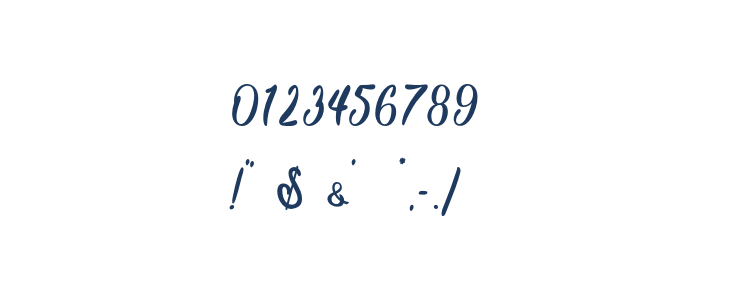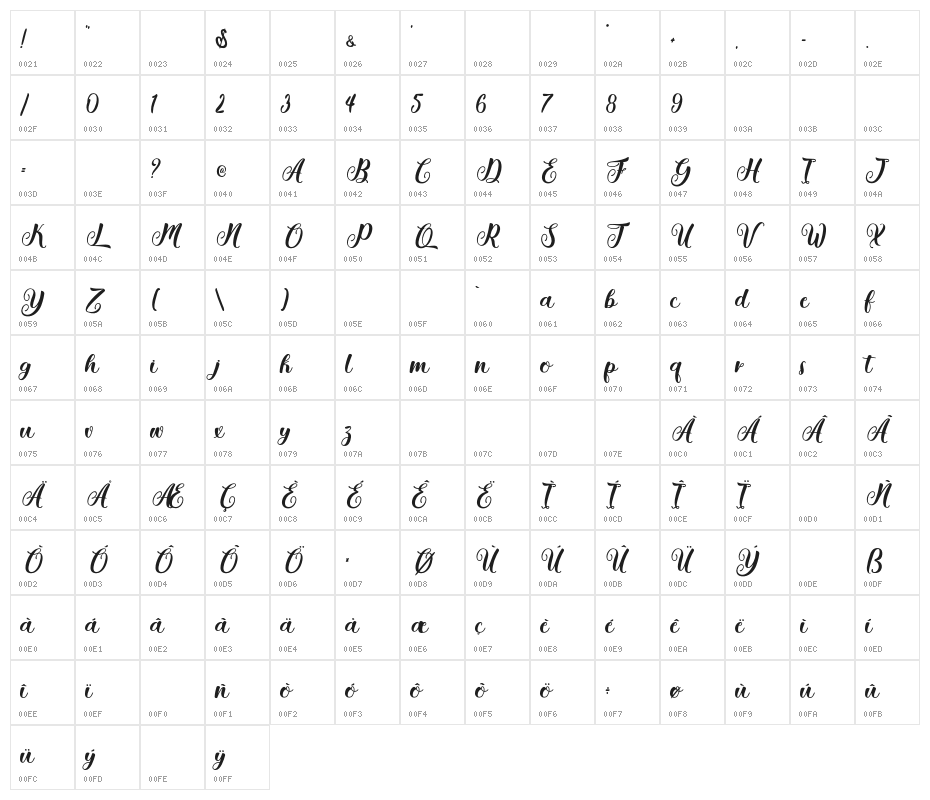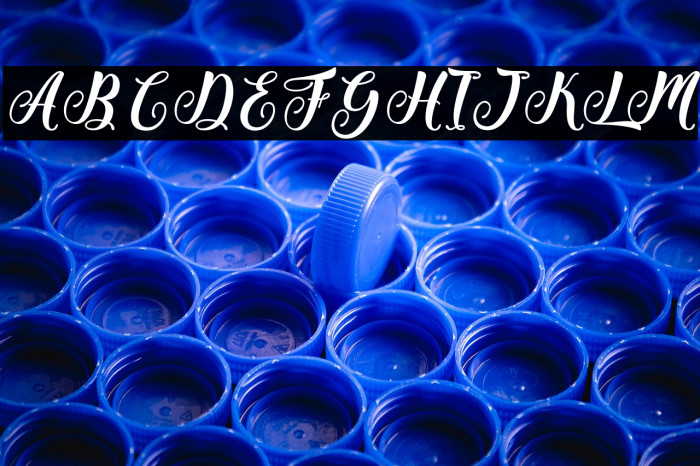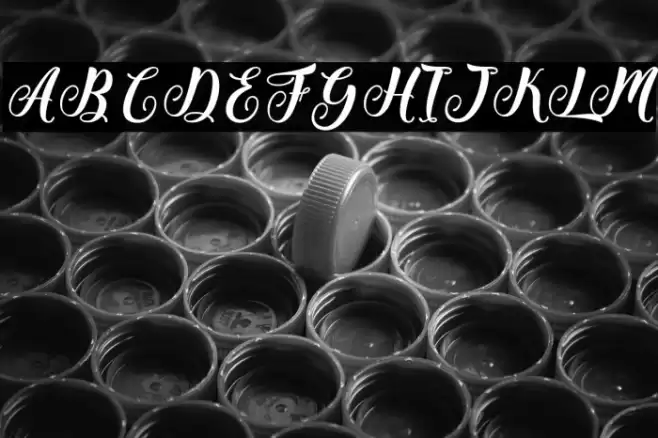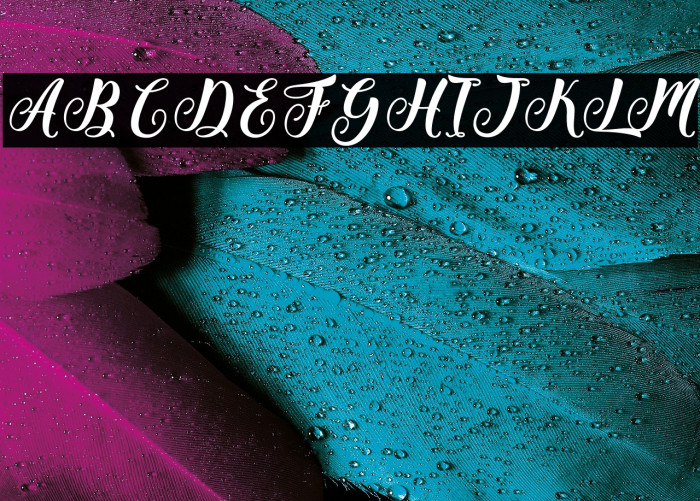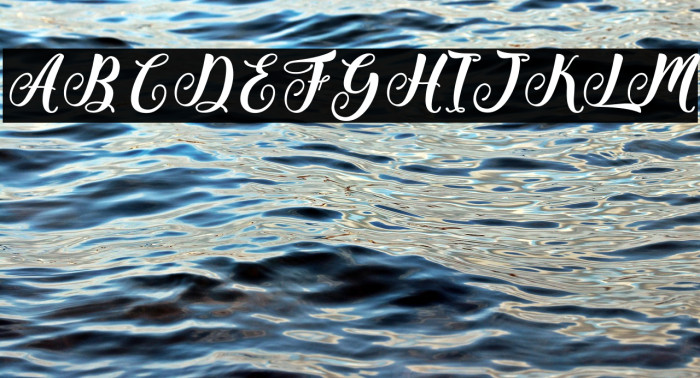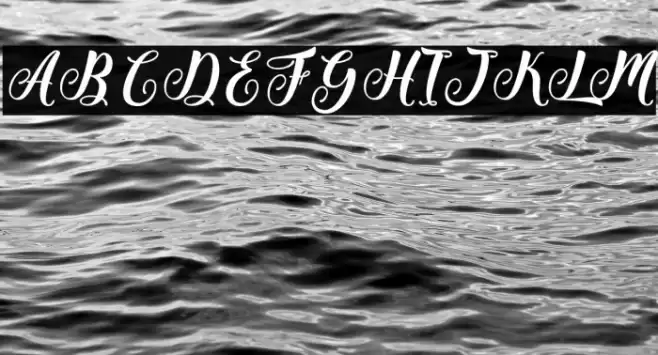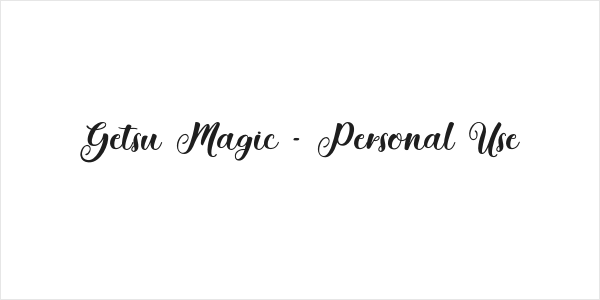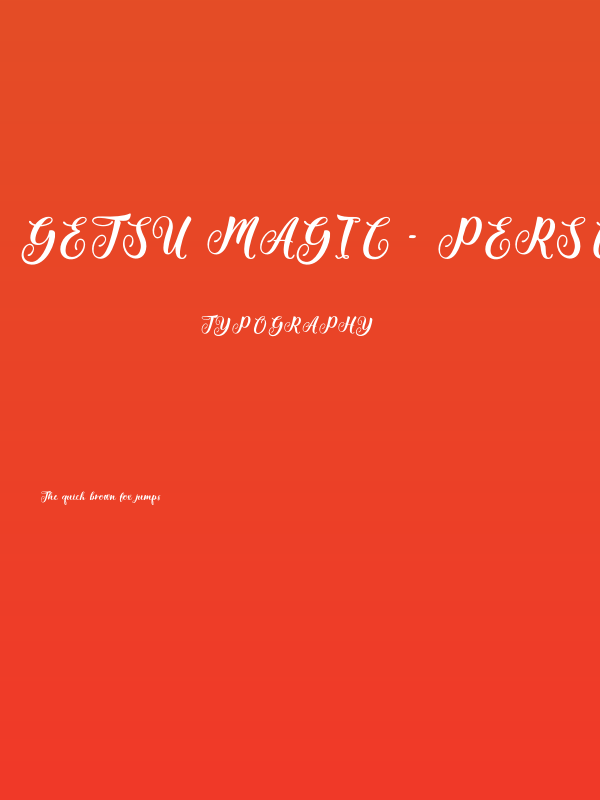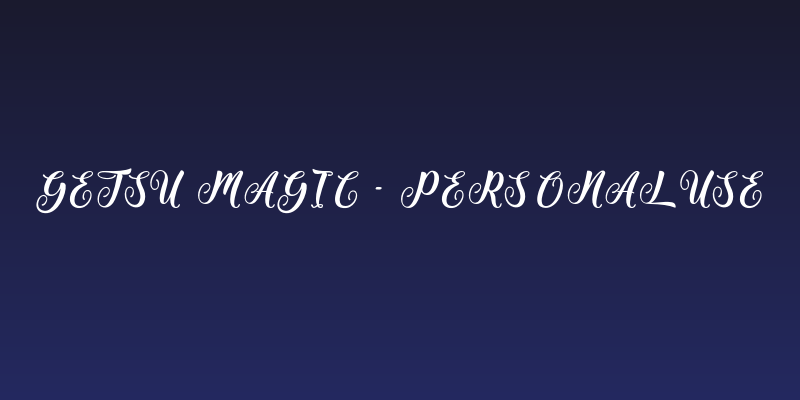
Getsu Magic - Personal Use Font
Getsu Magic - Personal Use Description
This font exudes a playful and elegant charm, characterized by its flowing script style. The uppercase letters are adorned with graceful swashes and loops, adding a touch of sophistication. The lowercase letters maintain a consistent fluidity, with smooth curves and a slightly whimsical flair. The numerals are clear and stylish, complementing the overall aesthetic. Special characters are thoughtfully designed, enhancing the font's versatility. This font is perfect for projects that require a personal and artistic touch, such as invitations, branding, and creative designs.
| Proposed Projects | Ideal for invitations, branding, greeting cards, and artistic projects. |